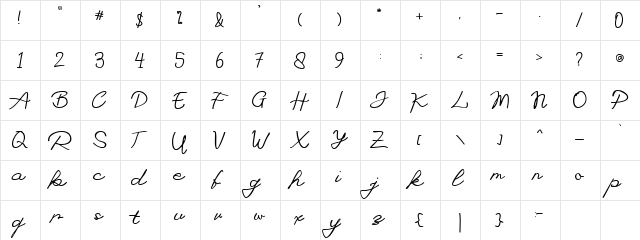
Rules Regular
Design Context for Rules Typeface
Rules is a composed and adaptable typeface that performs quietly and consistently across a wide range of design contexts.